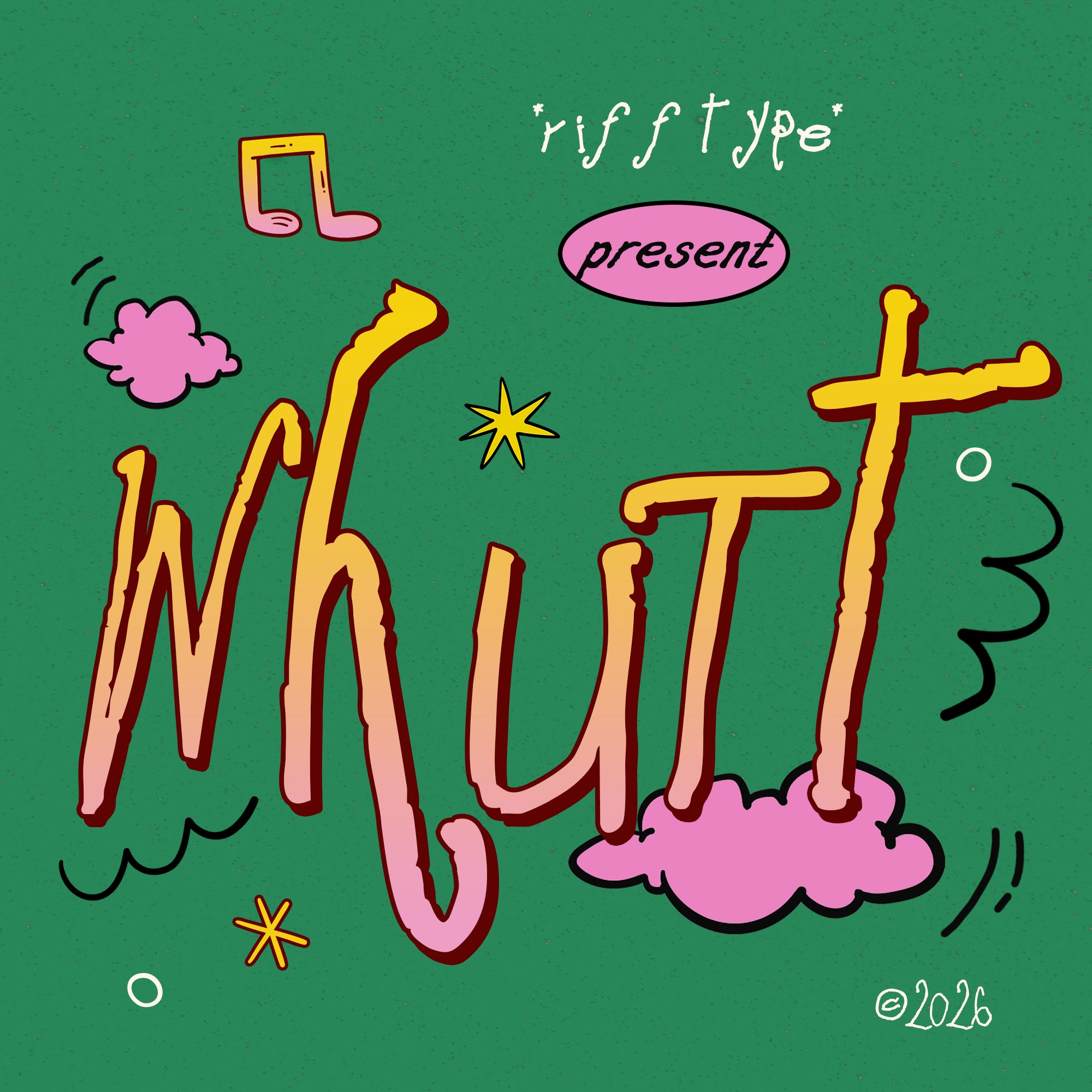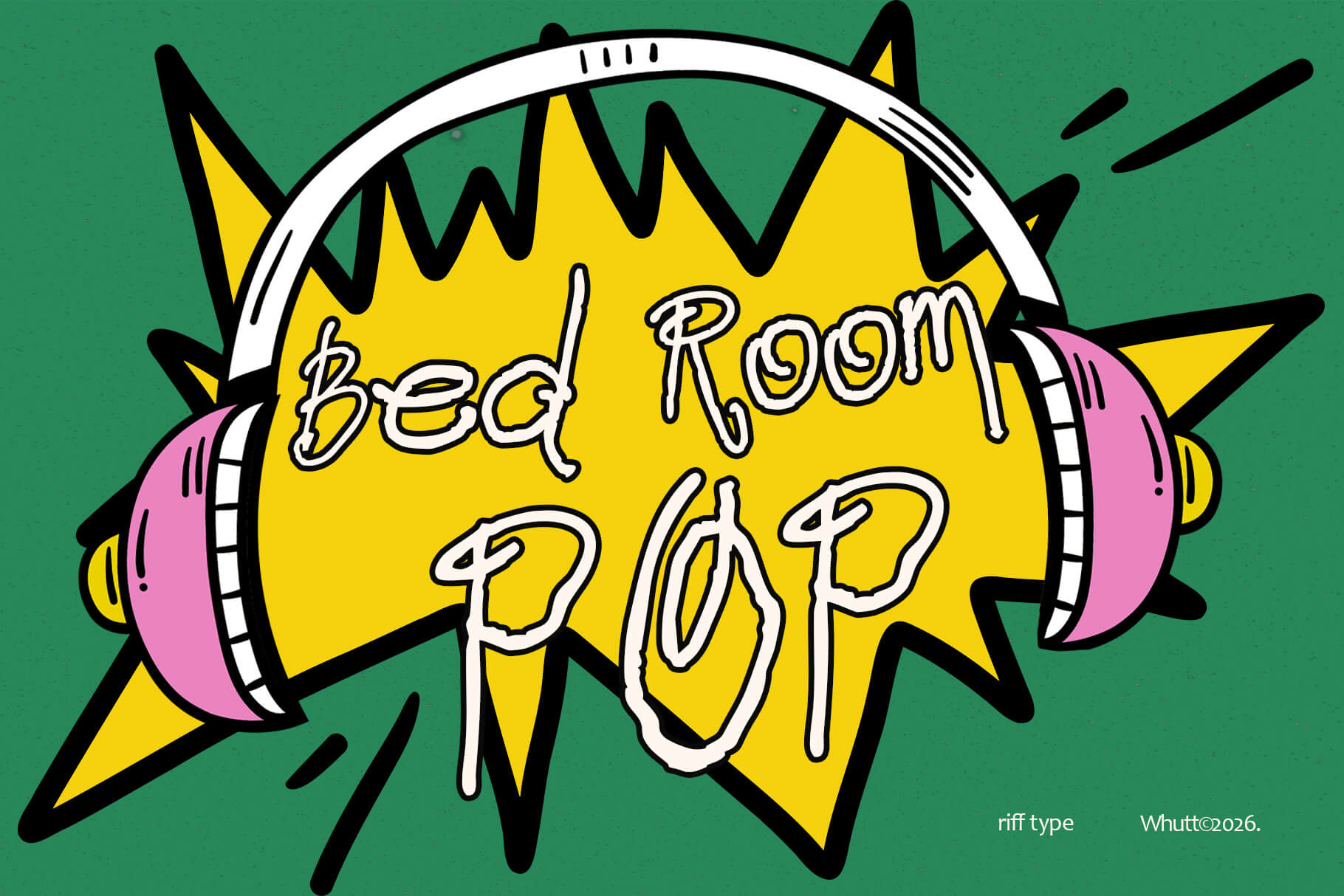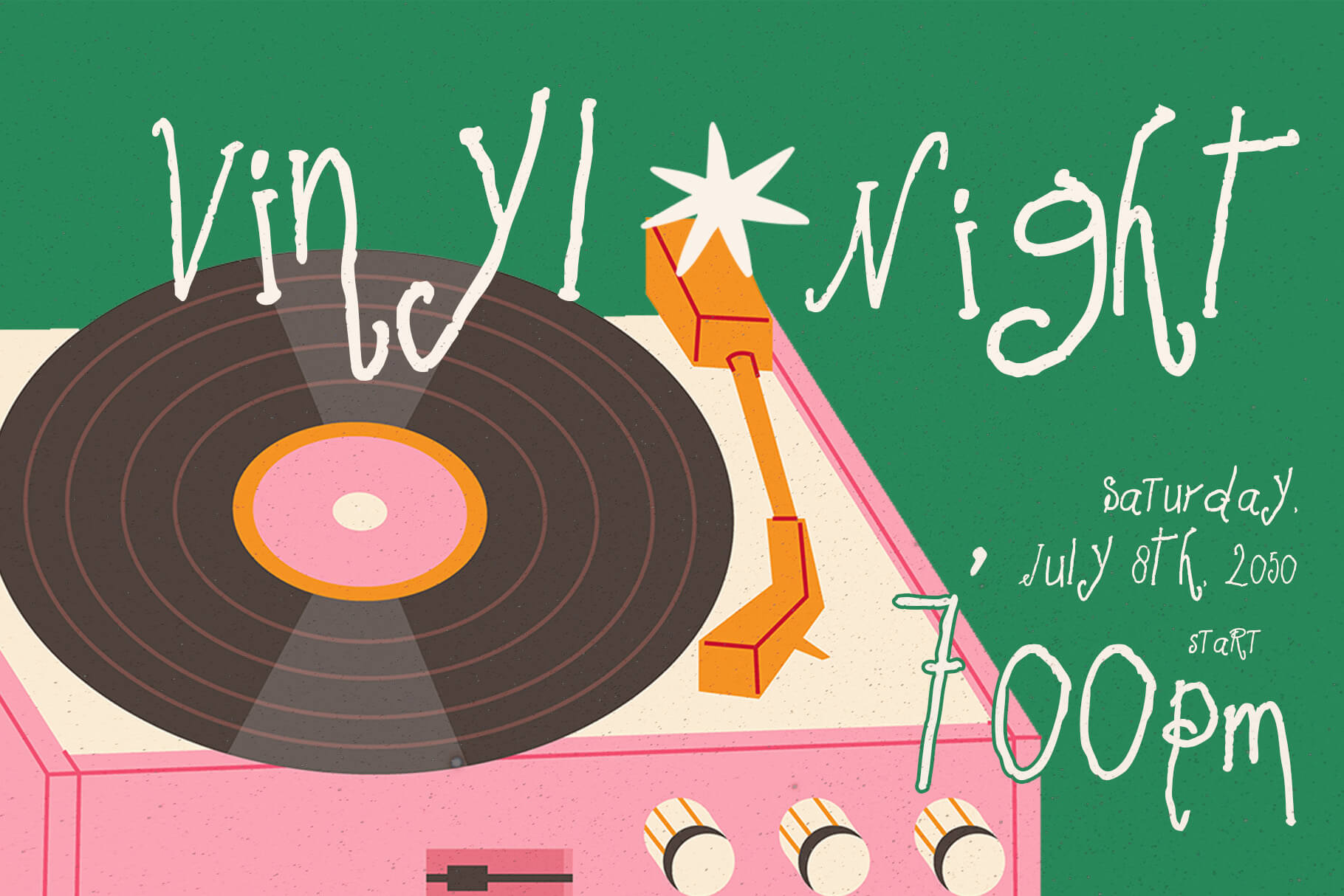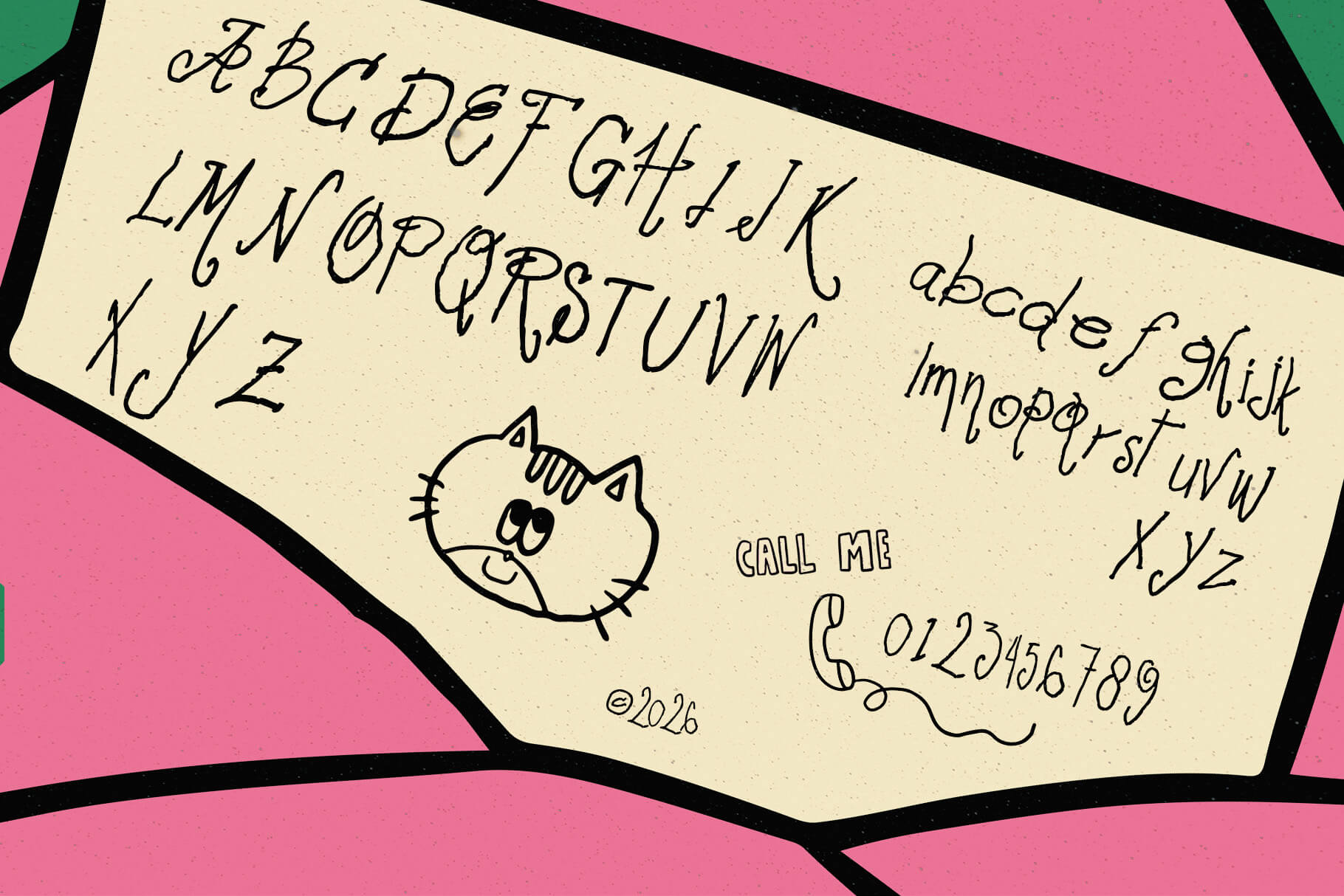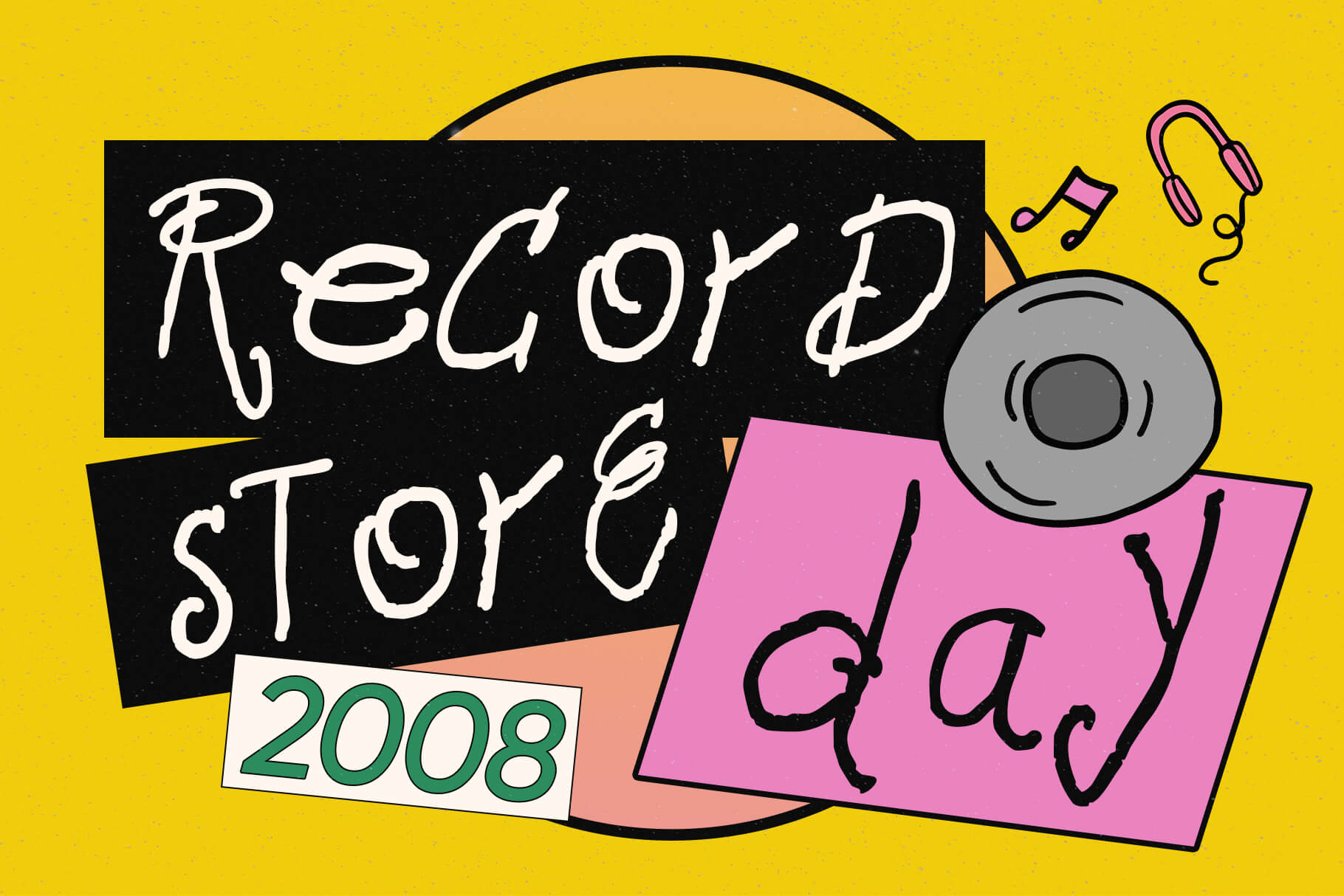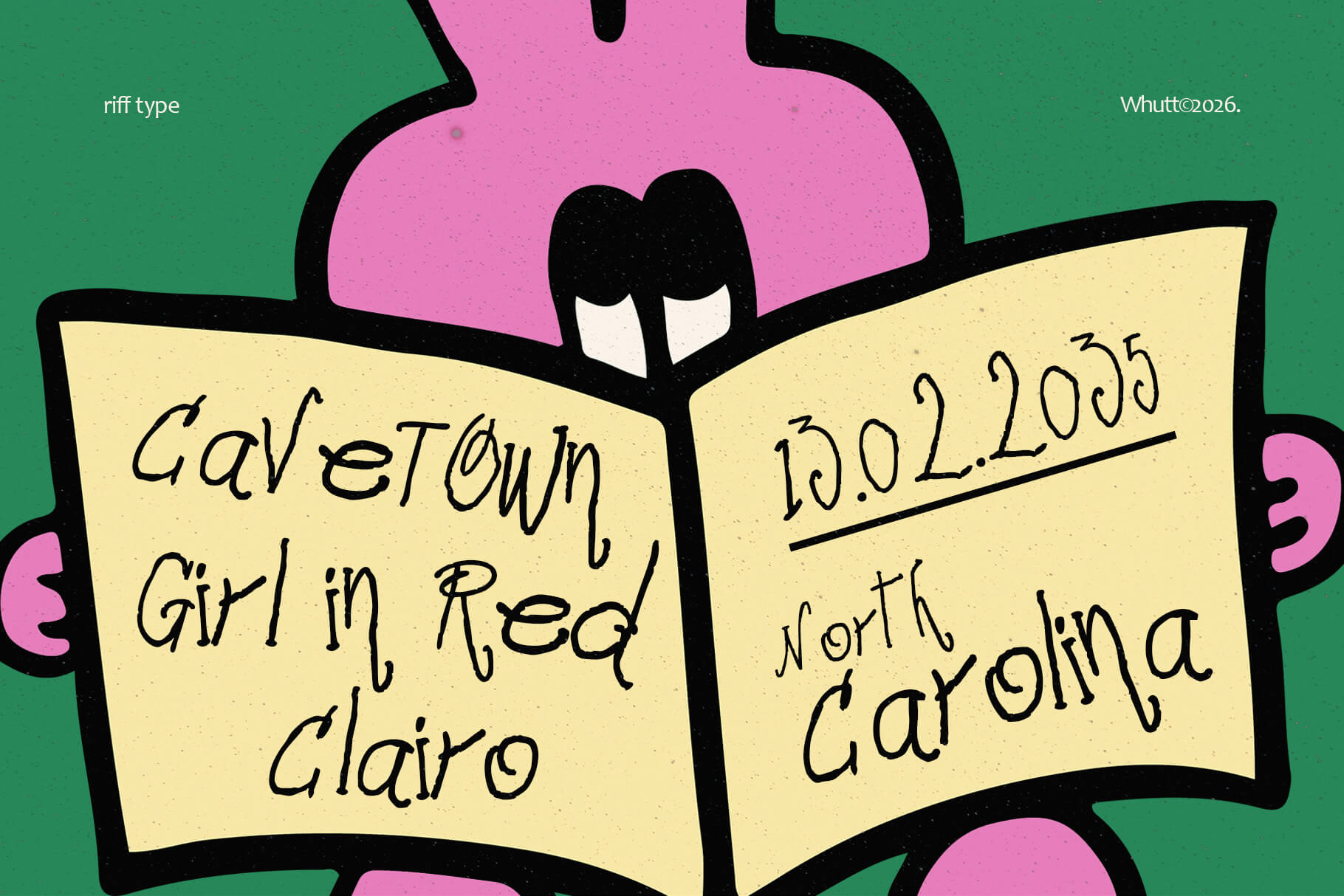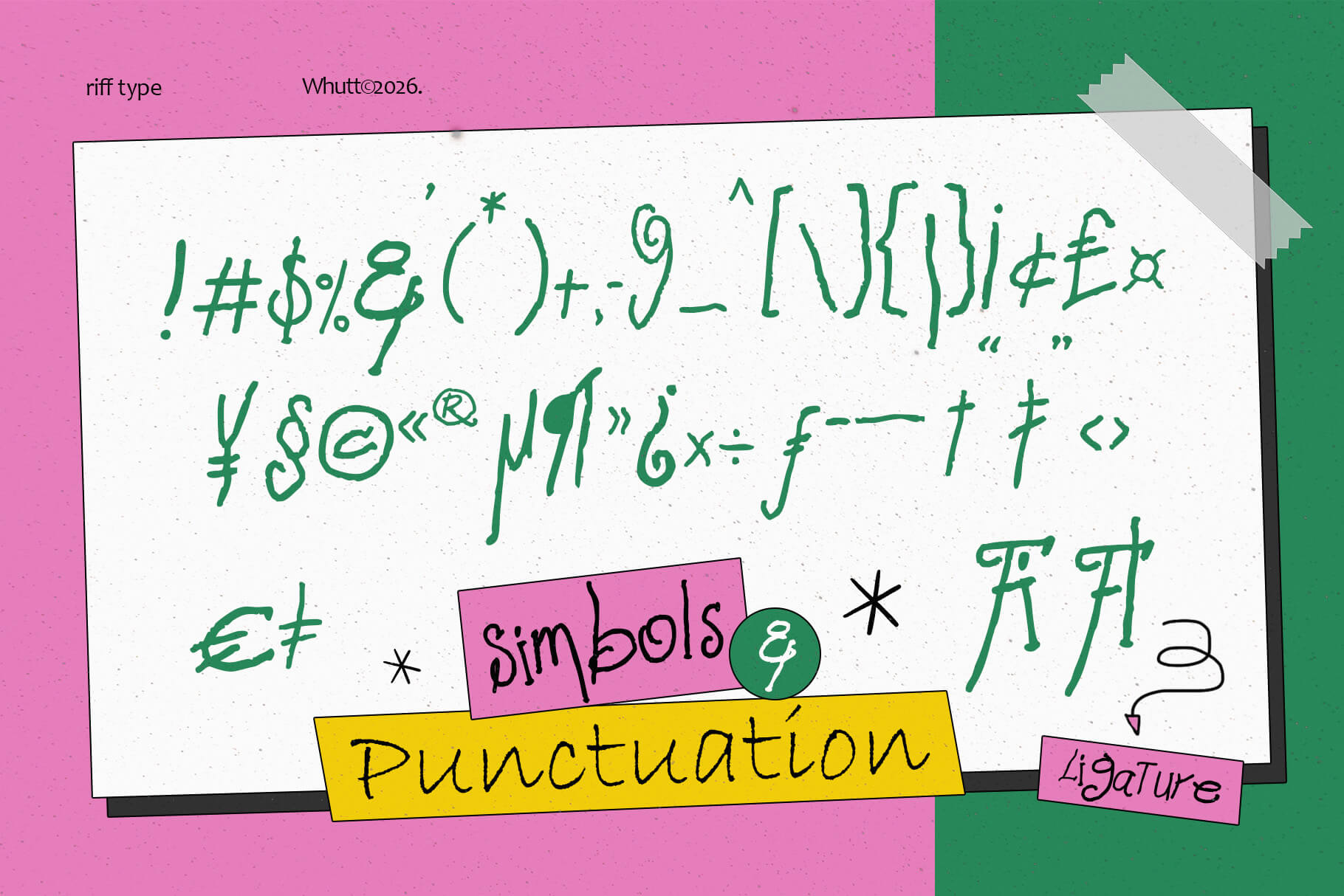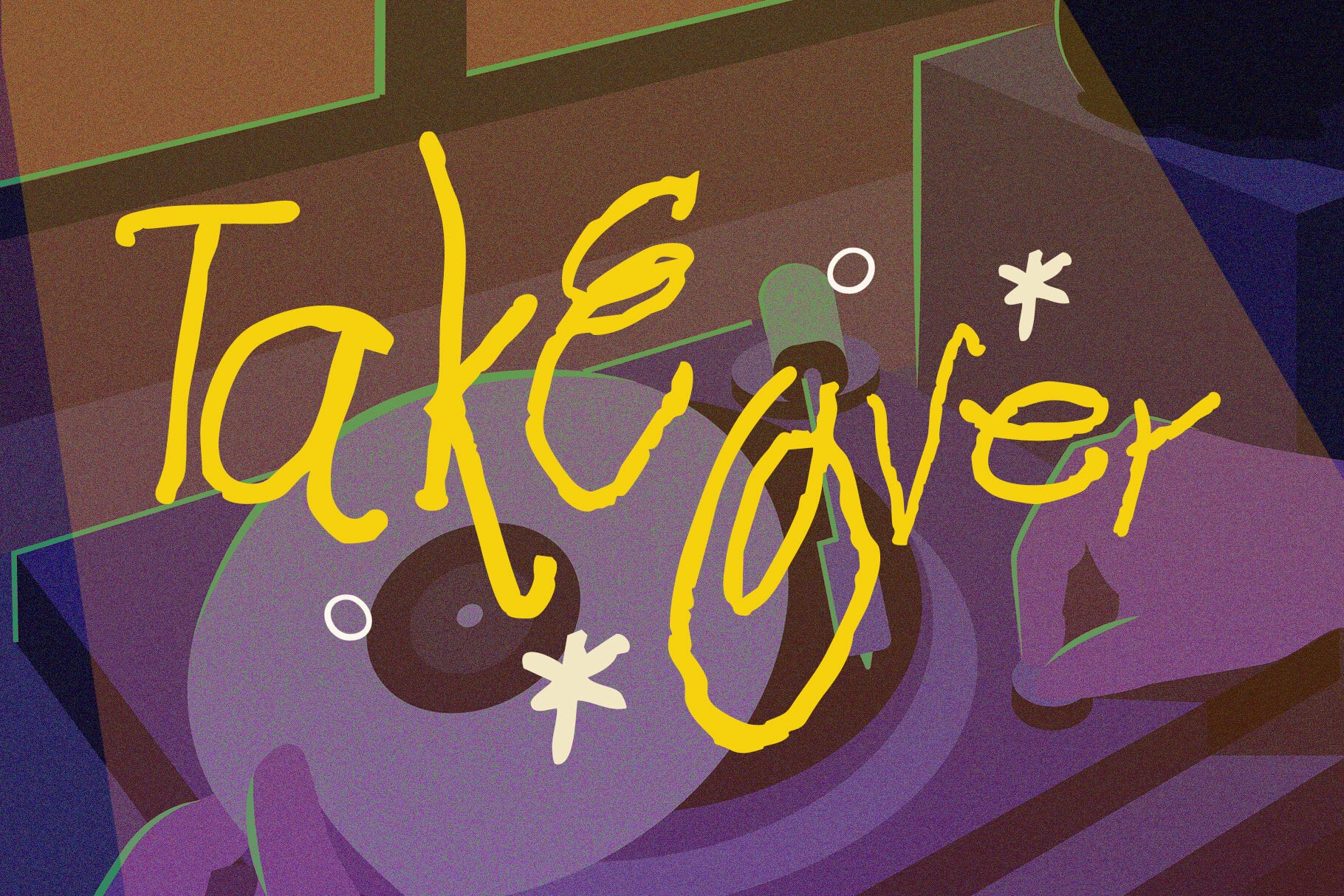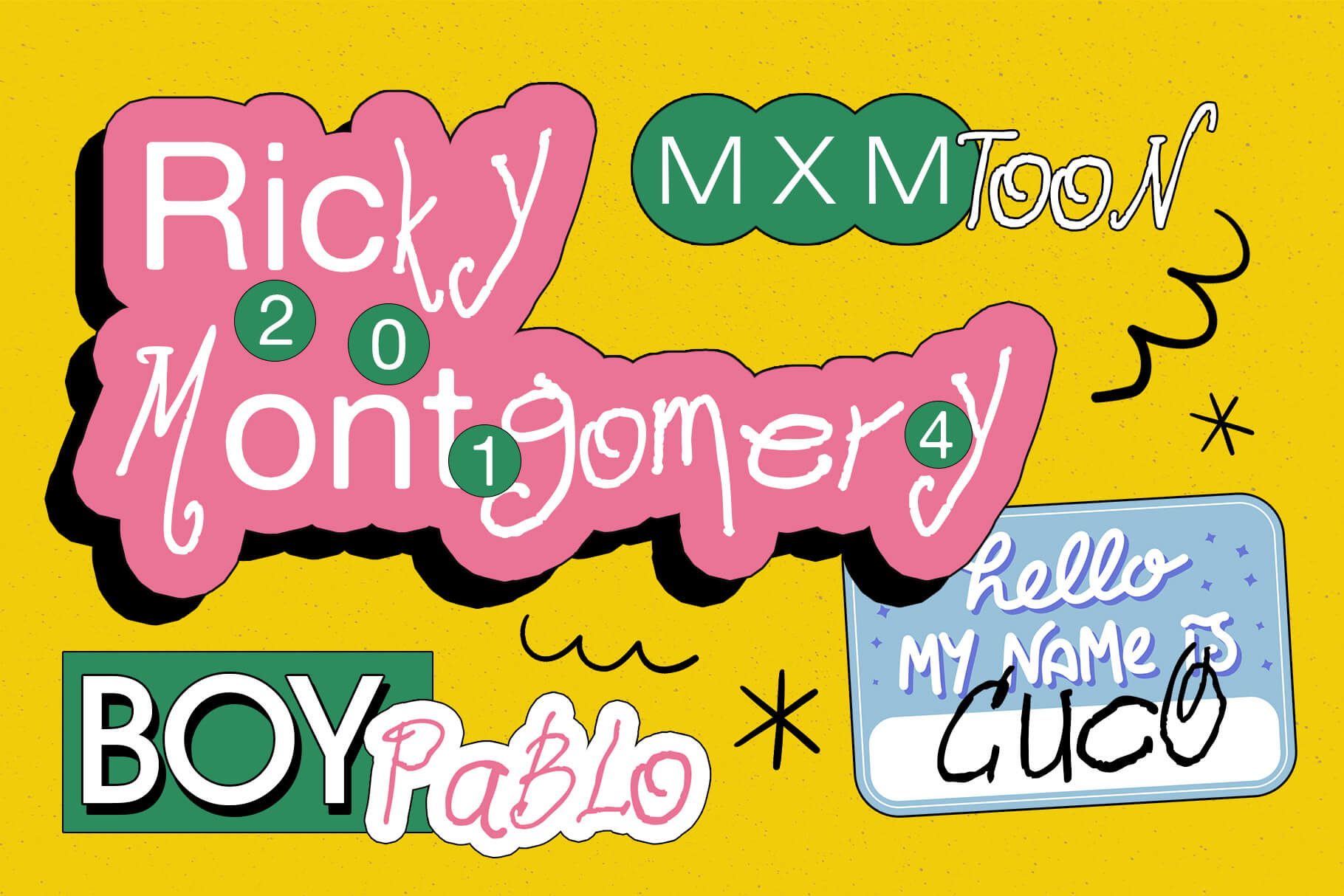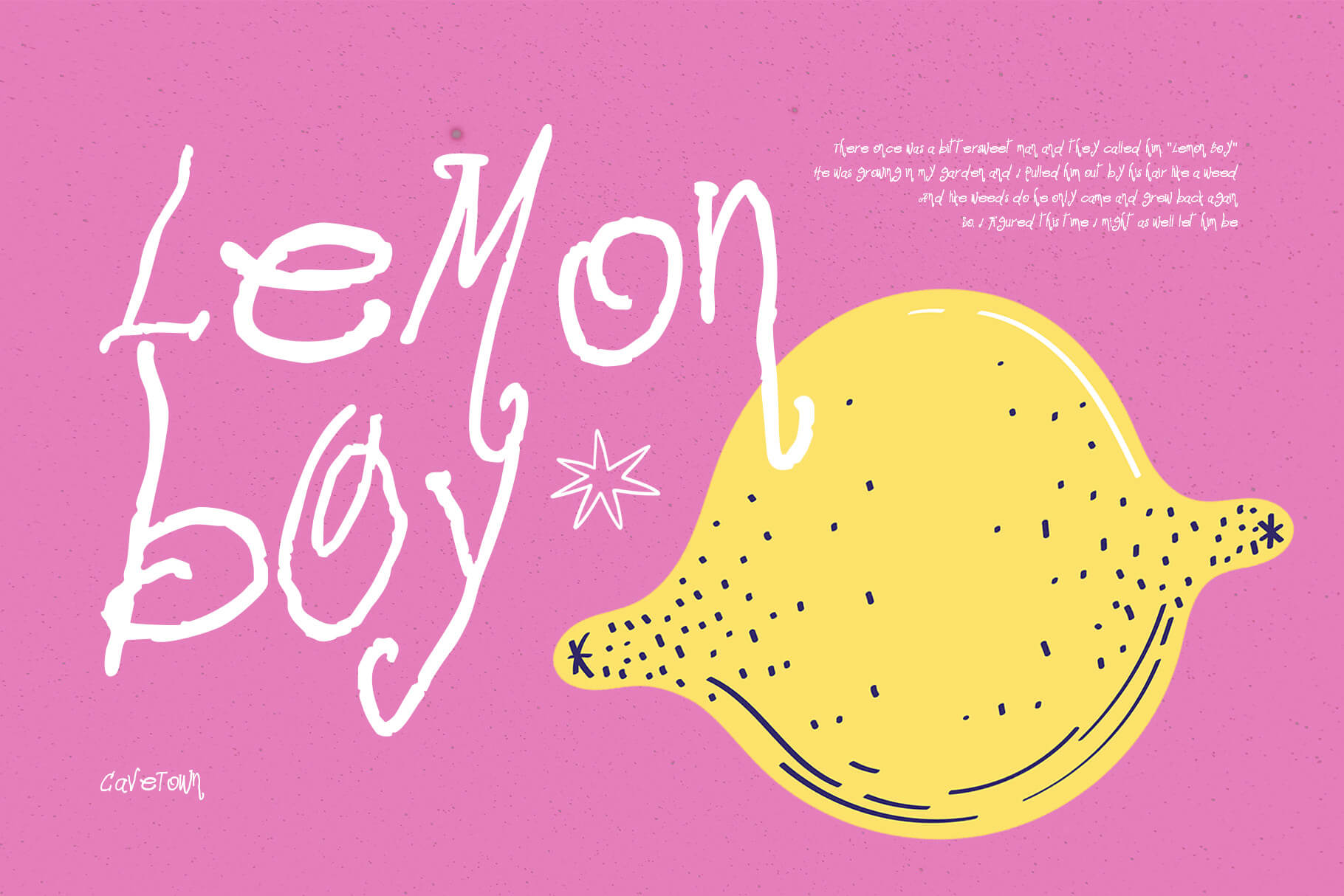
Whutt - Quirky Pop Display Font
Riff Type
Meet Whutt, the ultimate display font for the unfiltered, the dreamers, and the lo-fi music scene. This hand-drawn typeface was born in a cozy, cluttered bedroom, capturing the raw, intimate, and perfectly imperfect essence of bedroom pop. With its playful, irregular character, Whutt is like a mixtape for your designs.
It’s messy, it’s charming, and it refuses to align. Whutt is perfect for creating album covers for your indie project, nostalgic merch for your fans, zine layouts, or social media graphics that feel authentically human and DIY.
Whutt is a hand-drawn display font characterized by its playful and irregular style, designed to reflect the essence of lo-fi music and bedroom pop. This quirky typeface features a unique, messy aesthetic suitable for various design projects.